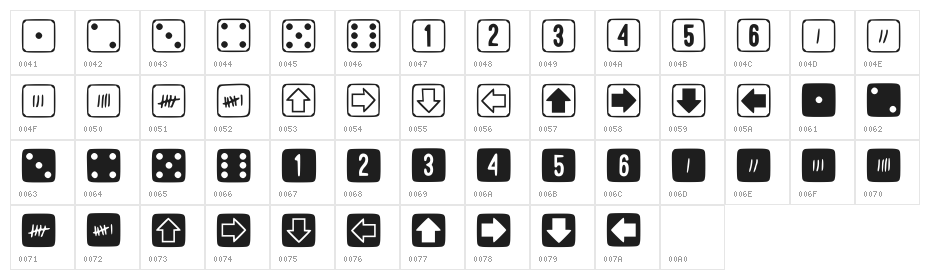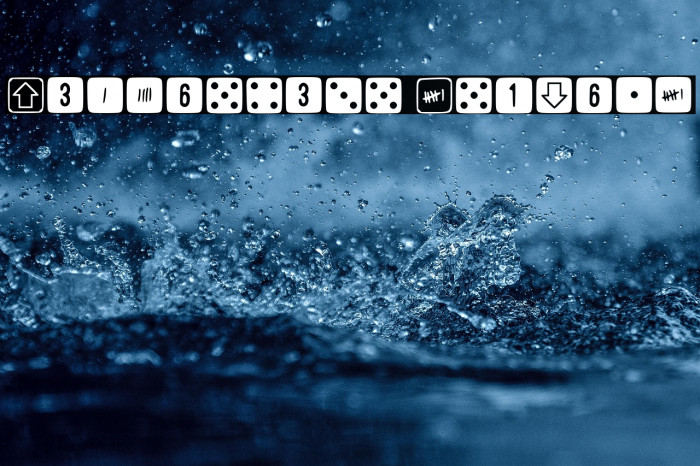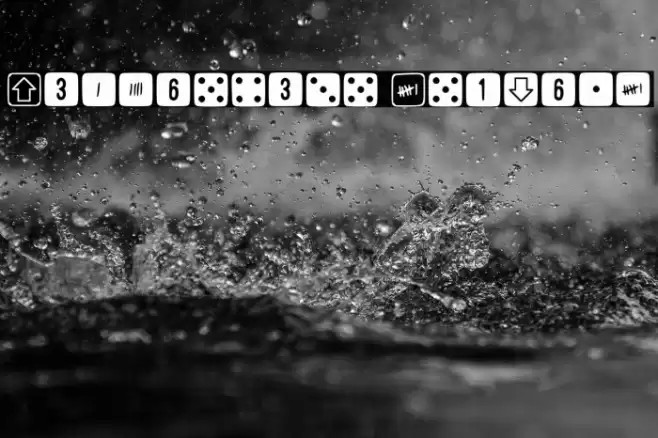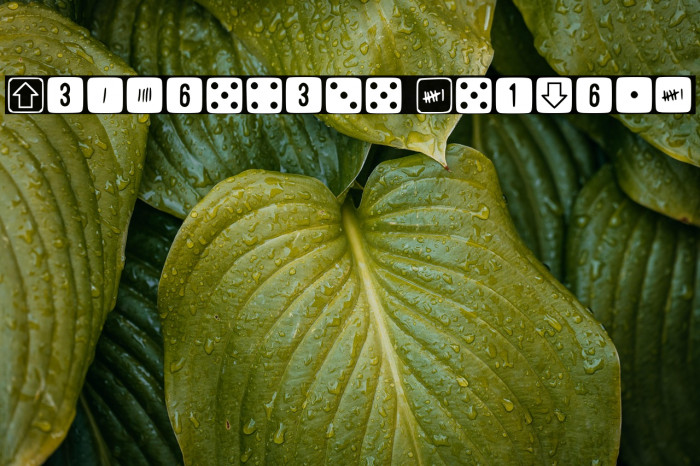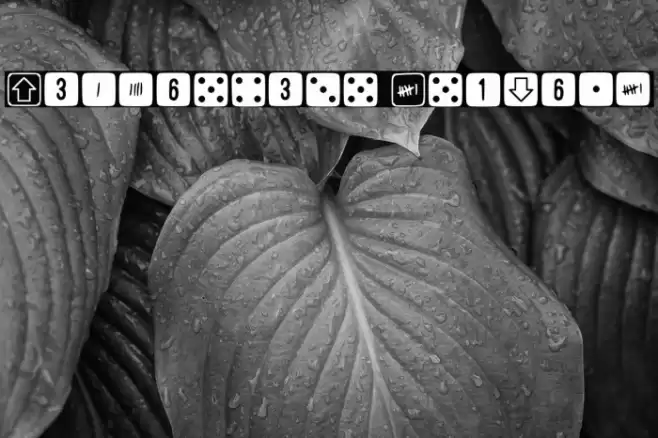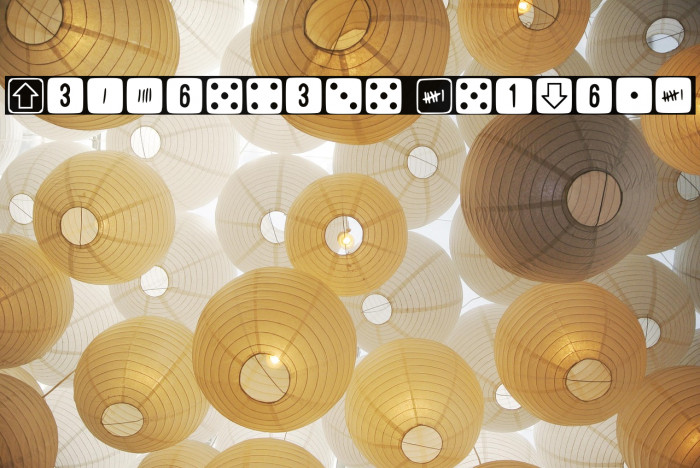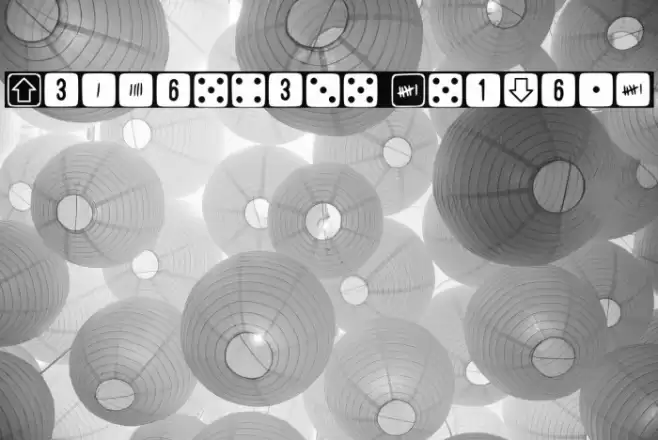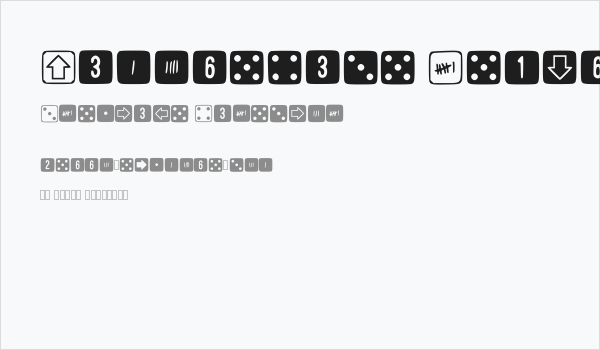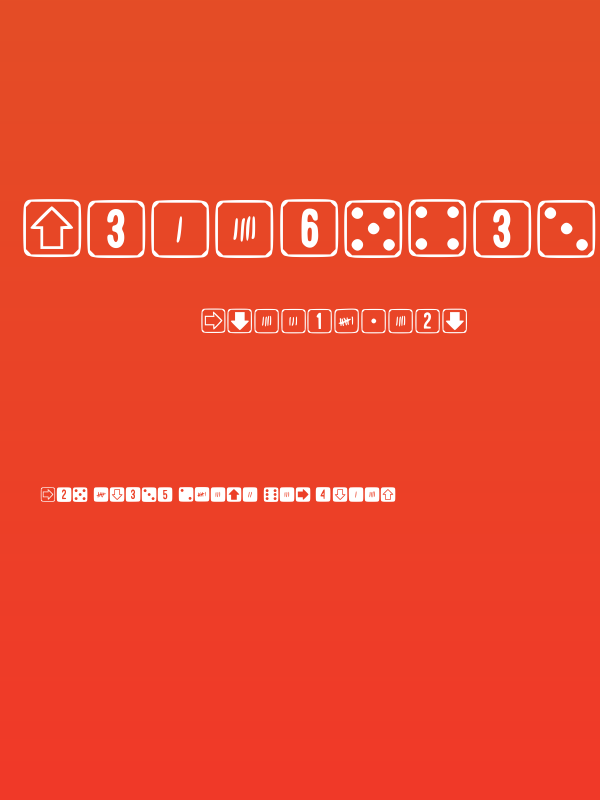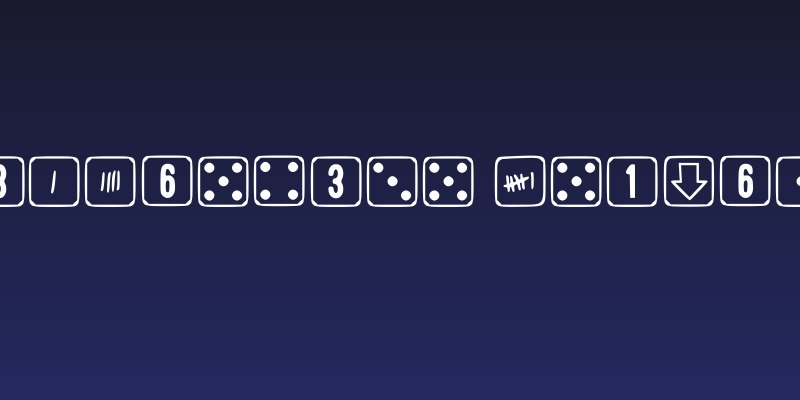
Simpledice Regular Font
Simpledice Regular Description
This font is a playful and thematic typeface that mimics the appearance of dice faces. Each character is enclosed within a rounded square, resembling the sides of a die. The numbers are represented by traditional dice dot patterns, while arrows and tally marks add a unique touch to the design. The font is bold and has a consistent weight, making it suitable for display purposes. The characters are evenly spaced within their squares, providing a uniform and organized look. This font is ideal for projects that require a fun, game-like aesthetic, such as board game designs, playful posters, or educational materials for children.
| Overall Style | Playful, Thematic |
| Use Case | Display, Logos, Themed Designs |
| Proposed Projects | Board game designs, playful posters, educational materials for children, themed event invitations. |